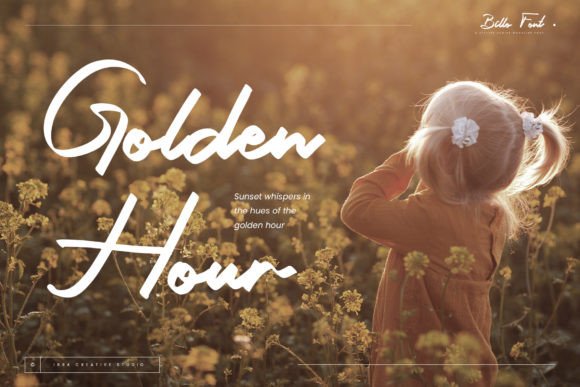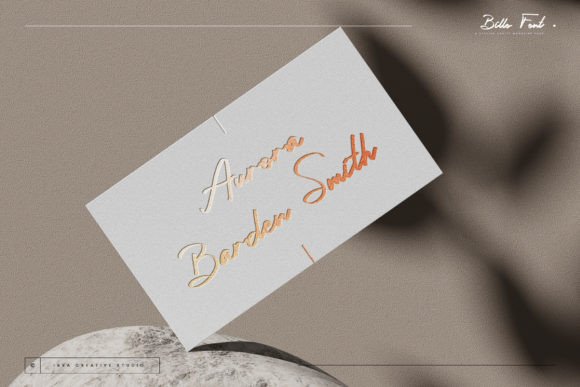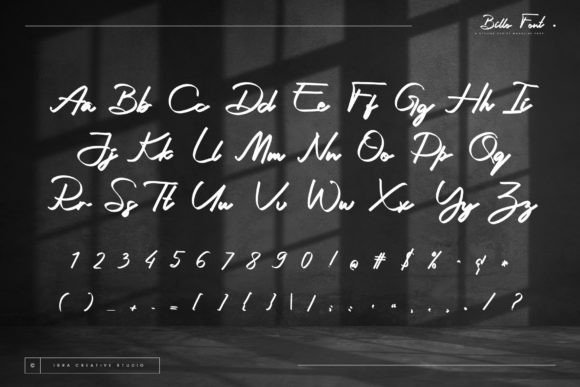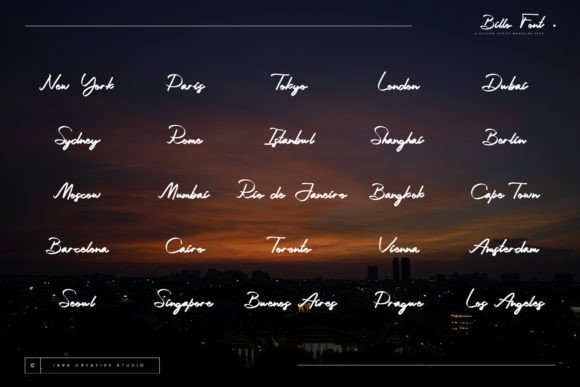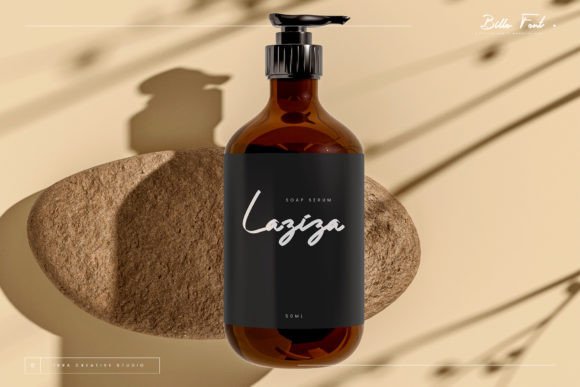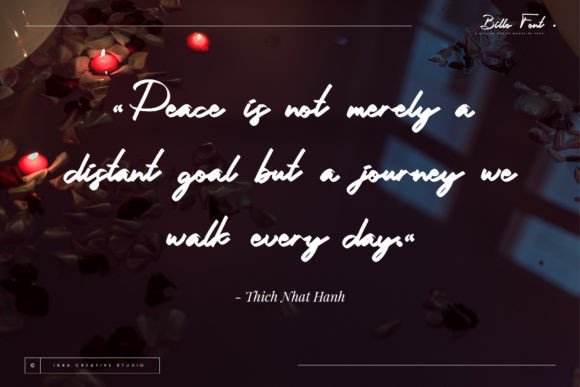
Billo Font: Adding a Touch of Casual Elegance to Your Designs
In the world of typography, few fonts manage to capture the essence of spontaneity and creativity as effortlessly as Billo. This marker script style font is a perfect blend of casual flair and lively charm, making it an excellent choice for designers and crafters looking to add a friendly yet stylish touch to their projects. In this article, we’ll dive into the unique features of Billo and explore its potential applications in various design contexts.
The Unique Characteristics of Billo Font
Billo’s distinctive character lies in its handcrafted strokes, which evoke the fluid motion of a marker. Each letter is carefully crafted to convey a sense of warmth and approachability, making it perfect for designs that require a personal touch. The font’s casual elegance is evident in its playful rhythm, as the characters dance across the page with a carefree abandon.
One of the standout features of Billo is its ability to balance playfulness with sophistication. The font’s marker-inspired strokes give it a fun, spontaneous feel, while its overall aesthetic remains refined and polished. This makes Billo an excellent choice for designers seeking to create engaging, approachable designs that still convey a level of professionalism.
Applications of Billo Font in Design
Billo’s versatility makes it suitable for a wide range of design applications, from branding and advertising to packaging and digital media. Here are a few examples of how you can use Billo to elevate your designs:
- Branding and Logos: Billo’s friendly, approachable vibe makes it an excellent choice for logos and branding materials. Use it to create a memorable brand identity that resonates with your target audience.
- Social Media Graphics: Billo’s playful rhythm and casual elegance make it perfect for social media graphics, such as quote graphics, promotional posts, and Instagram stories.
- Packaging Design: Add a personal touch to your packaging designs with Billo. Its marker-inspired strokes give product labels and packaging a fun, handcrafted feel.
- Digital Media: Use Billo to create engaging digital content, such as blog posts, email newsletters, and website headers. Its friendly aesthetic helps to create a welcoming user experience.
Tips for Using Billo Font Effectively
To get the most out of Billo, here are a few tips to keep in mind:
- Pair it with contrasting fonts: Combine Billo with a clean, sans-serif font to create visual interest and highlight the font’s unique characteristics.
- Experiment with colors: Billo looks great in a range of colors, from bold brights to muted pastels. Don’t be afraid to try out different color combinations to find the perfect fit for your design.
- Use it in moderation: While Billo is a beautiful font, it’s best used in moderation. Use it to draw attention to key elements, such as headings or calls-to-action.
Billo font is a versatile and engaging typeface that can add a touch of casual elegance to your designs. Its unique blend of spontaneity and creativity makes it perfect for designers and crafters looking to create friendly, approachable designs. With its wide range of applications and ease of use, Billo is an excellent addition to any designer’s toolkit. So why not give it a try and see how Billo can elevate your designs?